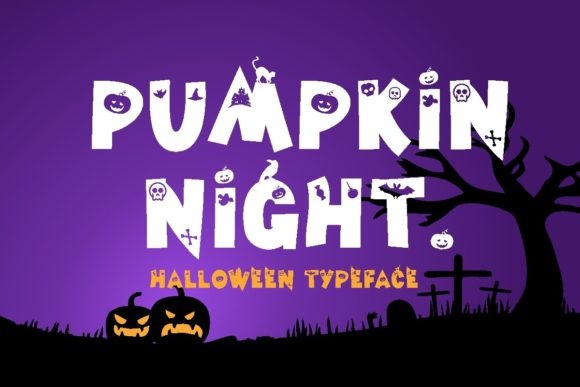
Journey into the realm of Pumpkin Night Font – a captivating creation poised to unleash your imagination like never before. Bold and unapologetically haunting, this decorative font is a stroke of genius for those seeking a distinctive and eye-catching aesthetic.
Immerse yourself in the bewitching allure of Pumpkin Night Font, a masterpiece designed to awaken the spirited storyteller within. With its intricate curves and supernatural charm, this font breathes life into your creative endeavors, enchanting your audience with its captivating presence.
Delve into the versatility of Pumpkin Night Font, an extraordinary companion for a myriad of projects. Unleash your creativity and let the spellbinding essence of this font elevate your Halloween crafts, horror movie posters, and t-shirts to new heights of brilliance.
Picture the spine-tingling anticipation as your audience encounters your captivating designs adorned with the Pumpkin Night Font. Its bold strokes and eerie aura will cast a spell on their senses, leaving them breathless and eagerly awaiting the next chapter in your enchanting tale.
Embrace the spirit of Pumpkin Night Font, a font that ignites your imagination and propels your creativity to dizzying heights. Its haunting beauty and mesmeric aura will enchant your audience, leaving them spellbound and eager for more.